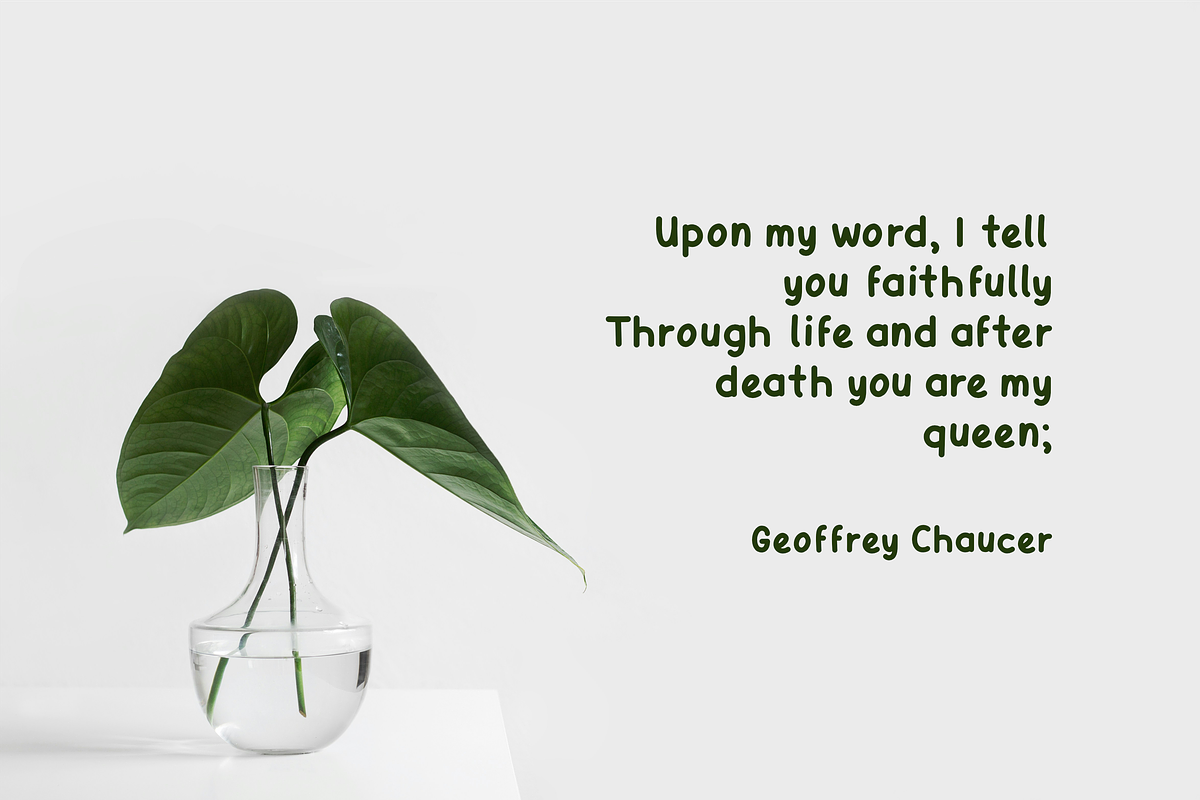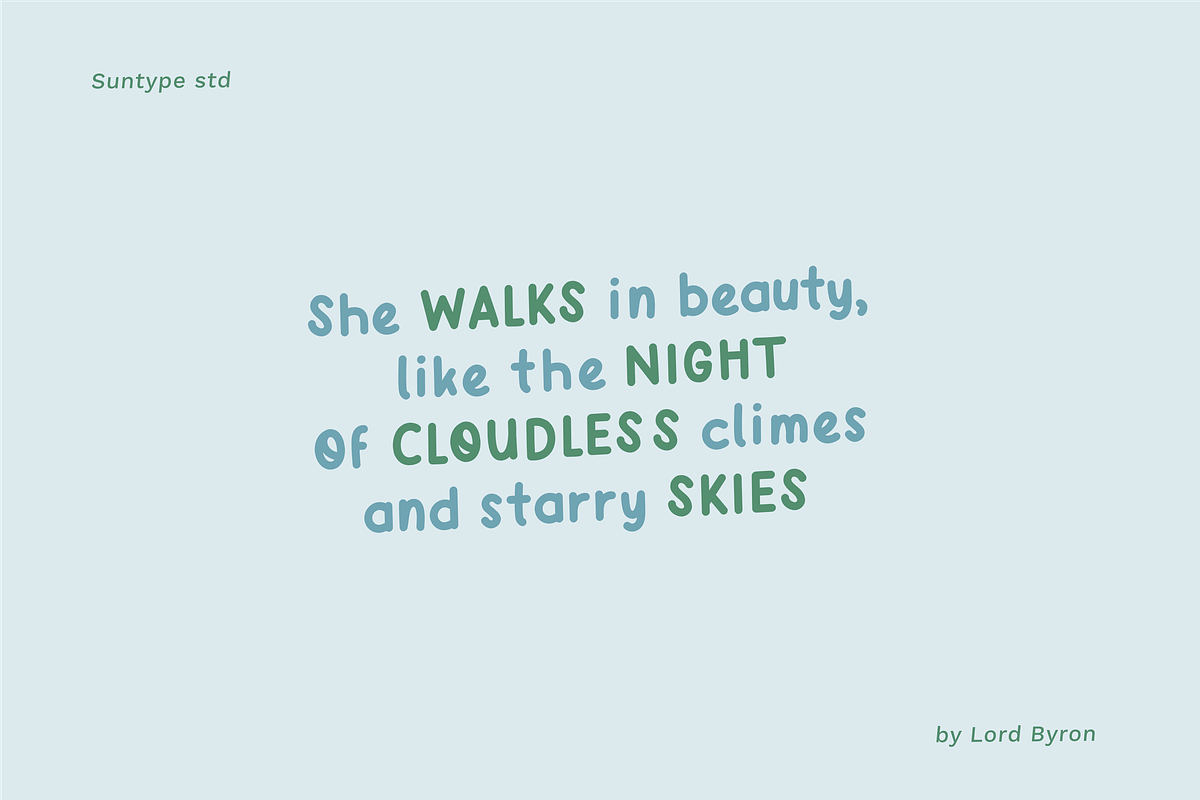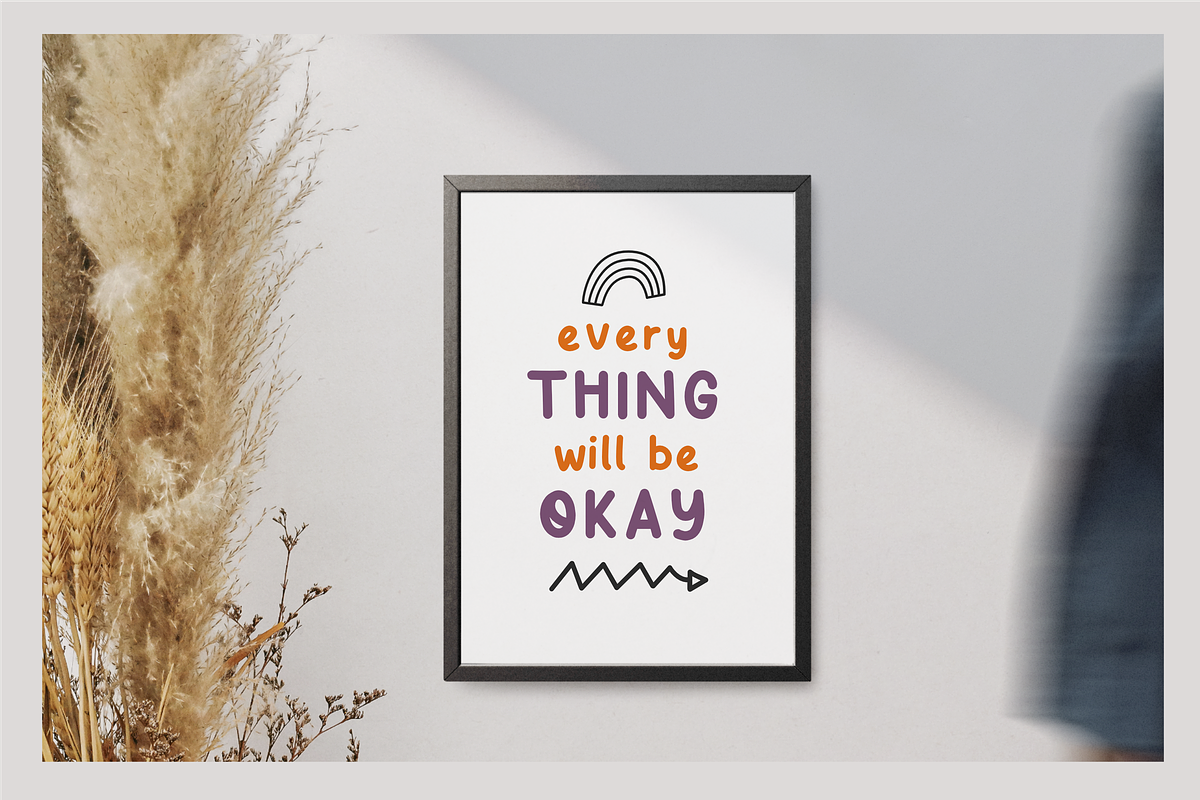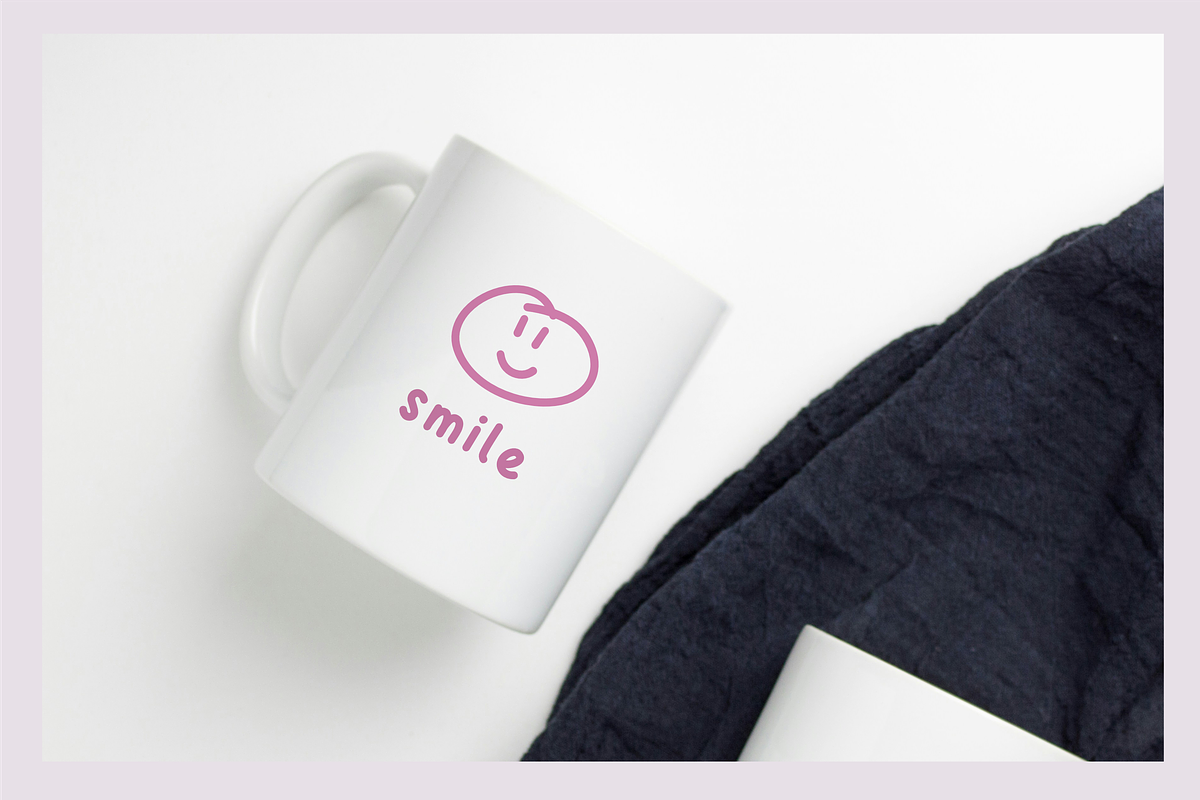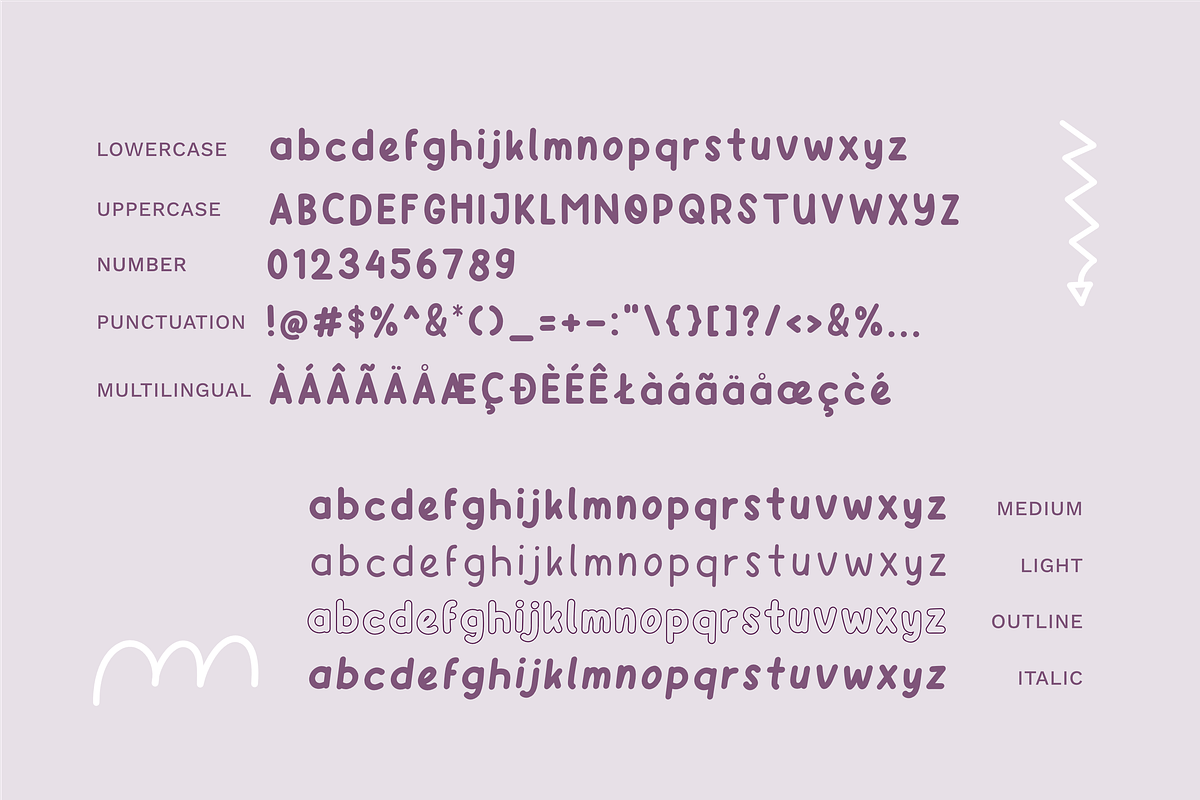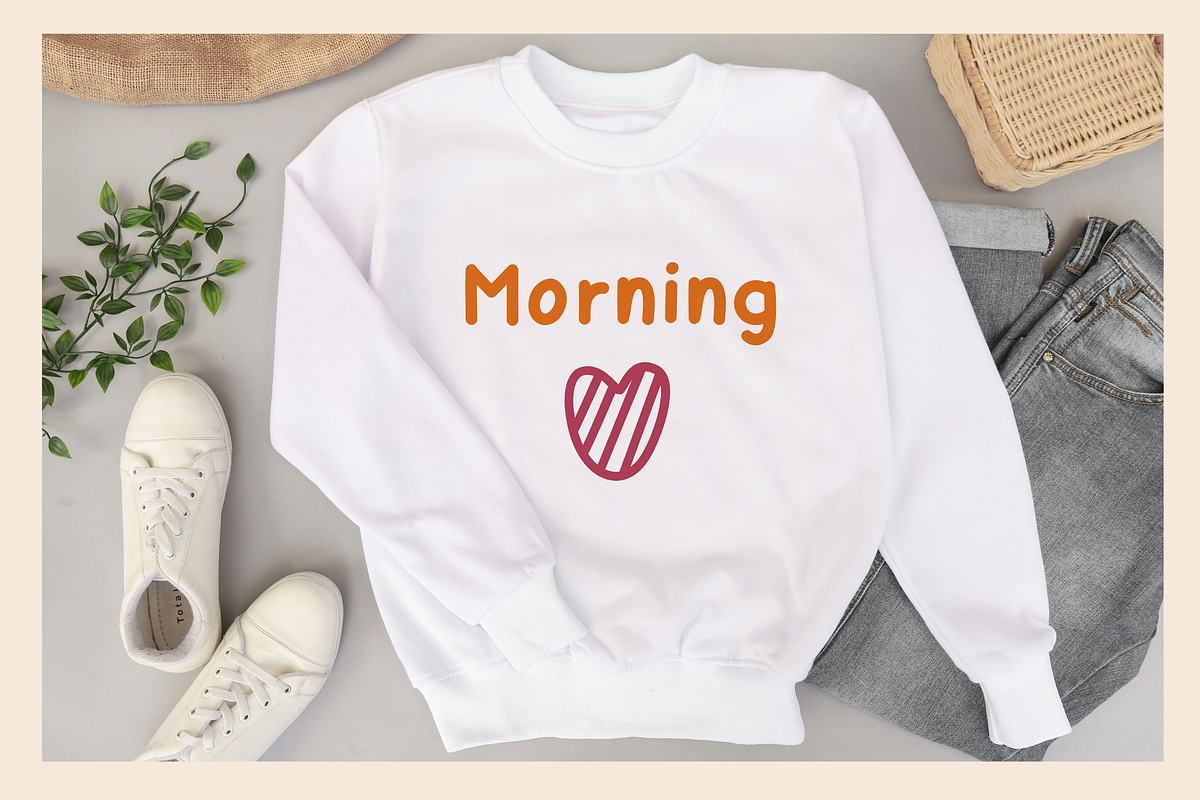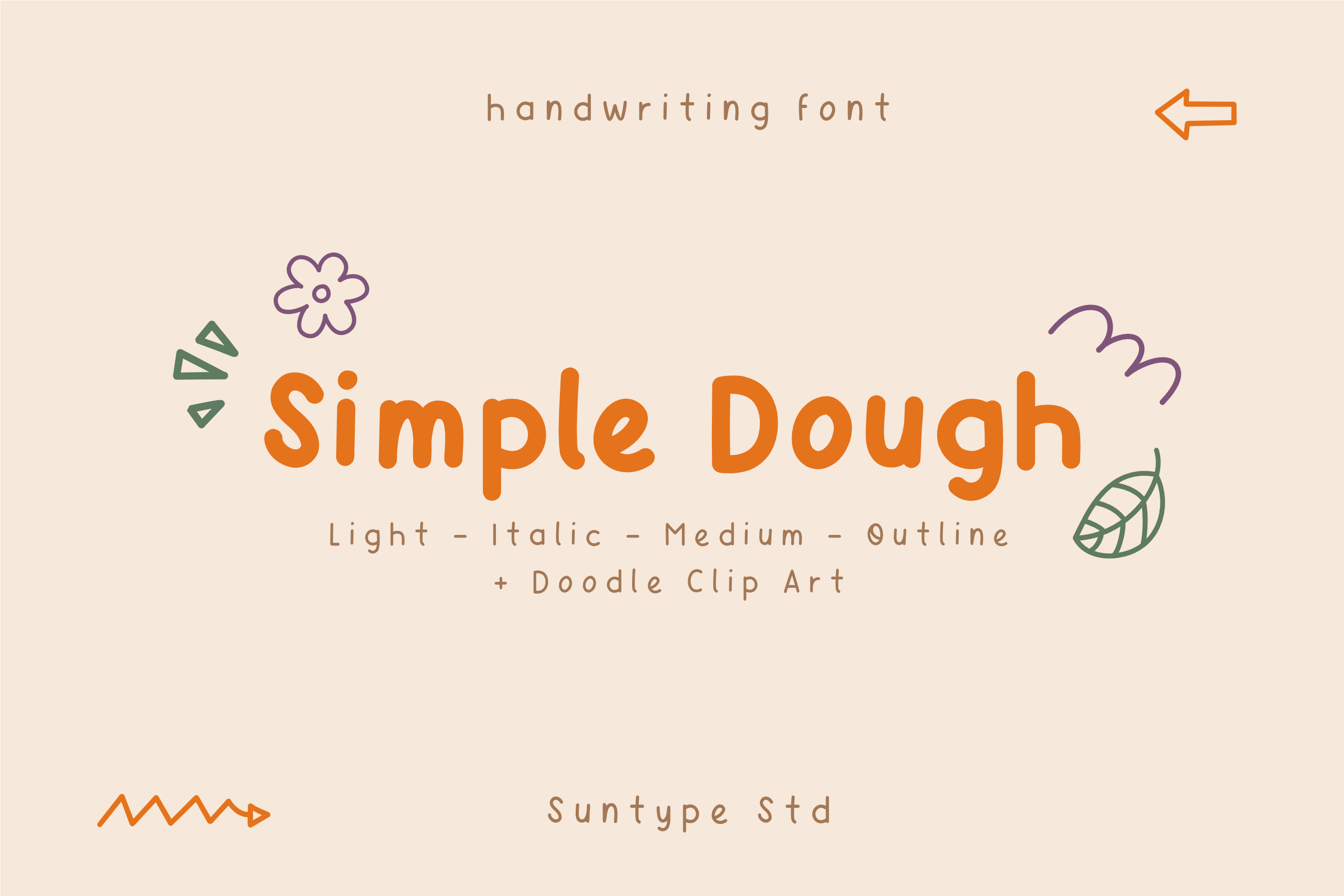
Simple Dough Handwriting Font
Simple Dougle h is a simple handwritten font. Suitable for use as a substitute for handwriting. Simple Dough can be applied if you want to use simple and easy-to-read writing such as notes, bodytext, posts on Instagram. In addition, it can be applied to printed products such as books, clothes, etc. Thanks for checking out my shop, and feel free to get in touch! suntype07@gmail.com
About the Features
- Standart alphabet (lowercase, uppercase and number)